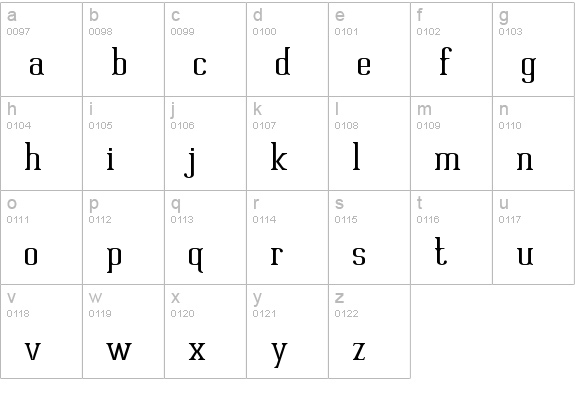
Rutager Font Details
Introducing Rutager, a stunningly versatile font that effortlessly combines elegance with modernity. With its clean lines and stylish curves, Rutager is the perfect choice for any design project that requires a touch of sophistication. This font captures attention with its unique blend of classic charm and contemporary flair. Whether used in headlines, logos, or body text, Rutager exudes a sense of refinement that is sure to leave a lasting impression. But what sets Rutager apart is not just its impeccable aesthetics—it's also the fact that it is absolutely free to download. Say goodbye to the constraints of costly font licenses, because Rutager is freely available to download at FontsMarket.com. Designed with meticulous attention to detail, Rutager offers a wide range of weights and styles, providing limitless possibilities for creative exploration. From light and airy to bold and impactful, this font has it all. Its versatility allows it to seamlessly adapt to any project, making it a valuable asset for graphic designers, web developers, and typographers alike. Rutager is designed to be easily legible, ensuring that your message is conveyed with clarity and precision. Its well-balanced proportions and carefully crafted letterforms make it a joy to read, whether in print or on screen. So, if you're in search of a font that combines elegance, modernity, and affordability, look no further than Rutager. Download it for free at FontsMarket.com and elevate your designs to new heights. Experience the beauty and versatility of Rutager font today.